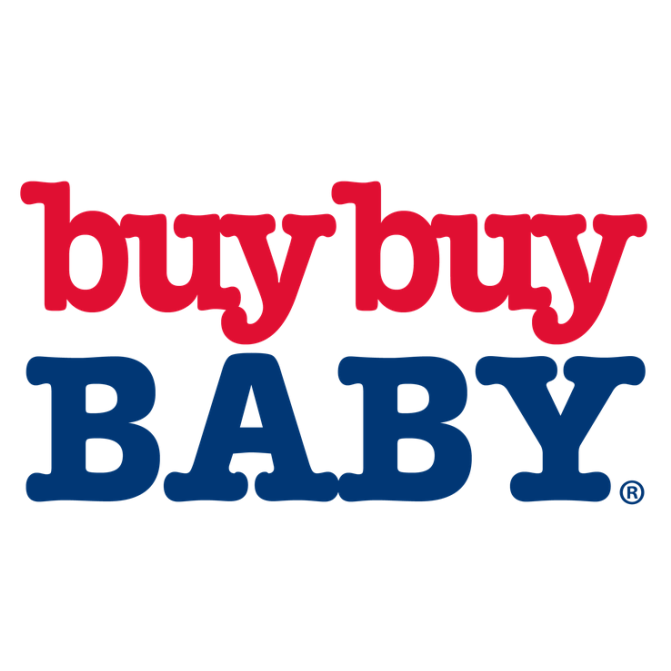
Buy Buy Baby Font
Fonts in UseBuy Buy Baby is a chain of retail stores that specializes in baby products, such as clothing, toys, and furniture. The company is owned by Bed Bath & Beyond Inc. and was founded in 1996 in Garden City, New York.
Baby clothing brand logo uses American Typewriter Bold, a slab serif typeface created in 1974 by Joel Kaden and Tony Stan for International Typeface Corporation. It was also used in the iconic "I Love New York" logo designed by Milton Glaser in 1977.